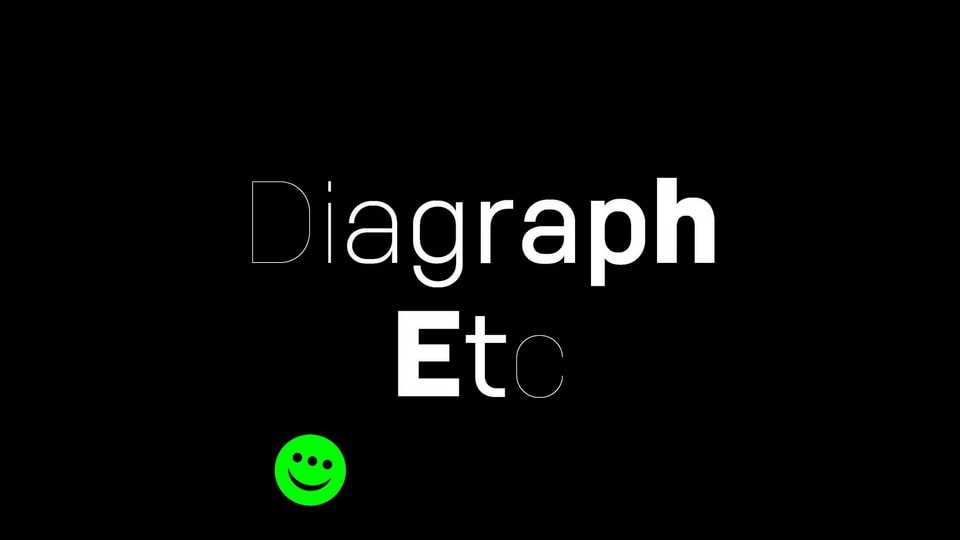
Download Diagraph font, a sans serif typeface that mimics the rudimentary look of Computer Aided Design (C.A.D.) typefaces. All the mathematically generated aberrations have been kept in the design to enhance its digital look.
Designer: Nazareno Crea